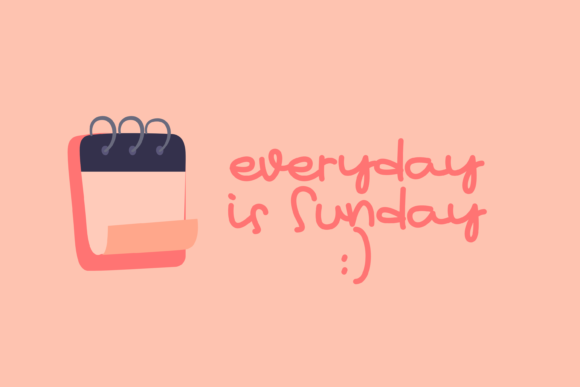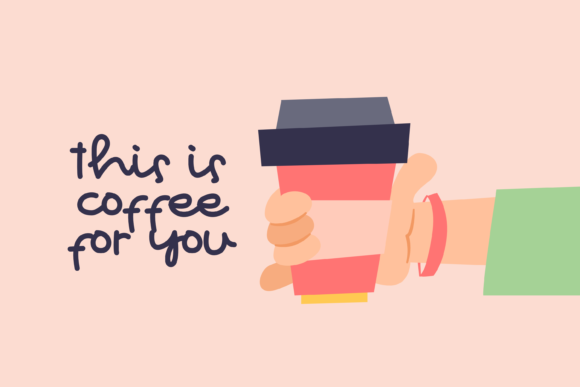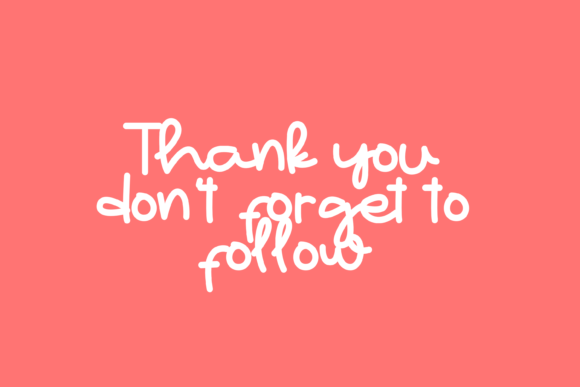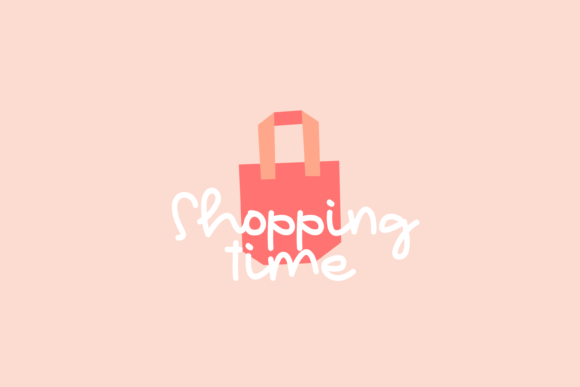
Introduction to Hello Wednesday Font
Have you ever stared at a blank page, your mind racing with ideas, but struggling to find the perfect font to bring them to life? That’s exactly where I was when I discovered the Hello Wednesday Font – a playful and fun handwritten design that instantly elevates the look of any creative project.
As designers, we’re always on the lookout for high-quality design resources that can give our work a unique and stylish touch. The Hello Wednesday Font is a valuable addition to any design arsenal, offering a transparent background that makes it perfect for overlaying on images or using as a standalone text element.
Key Features of Hello Wednesday Font
- Unique, high-quality design ideal for creative projects, such as graphic design, digital art, and advertising.
- Transparent background, making it easy to customize and integrate with various design elements.
- High-resolution font, suitable for use in print and digital media, with a resolution of 300 DPI or higher.
- Designed to be versatile and adaptable, making it perfect for a wide range of creative projects and applications.
- Part of a larger font family, offering a consistent look and feel across different font styles and sizes.
Honest Review: Hello Wednesday Font
I recently had the opportunity to work with the Hello Wednesday Font, and I must say, it was a game-changer for my creative project. This font is a high-quality design resource that can elevate any project with its unique and stylish feel.
Here are some of the things that worked well for me:
- Unique and stylish design that added a creative touch to my project
- Easy to use and customize
- Works well with a variety of backgrounds and designs
Of course, like any font, the Hello Wednesday Font has its limitations:
- May not be suitable for projects that require a more traditional or formal font
- Can be a bit overwhelming if used too extensively
Overall, I was really impressed with the Hello Wednesday Font, and I would definitely recommend it to designers looking for a high-quality, unique font for their creative projects. It’s a valuable addition to any design resource collection.
Use the Hello Wednesday Font on a transparent background to create a clean and modern look. Experiment with different font sizes and styles to add depth and interest to your design. You can also use the Hello Wednesday Font as a design resource for a variety of creative projects.
The Hello Wednesday Font is perfect for creating high-quality designs for social media, branding, and marketing materials. It’s also a great choice for designing presentations, documents, and other visual content. With its free download and transparent background, the Hello Wednesday Font is a valuable design resource for any creative project.
No, the Hello Wednesday Font does not have a transparent background. However, you can easily create a transparent background by using a design software that supports layering and masking, such as Adobe Illustrator or Photoshop.
Q: Is the Hello Wednesday Font high quality and suitable for print?
Yes, the Hello Wednesday Font is a high-quality design resource that is suitable for both digital and print projects. It has been carefully crafted to ensure crisp and clear typography, making it perfect for use in logos, branding, and other creative projects.